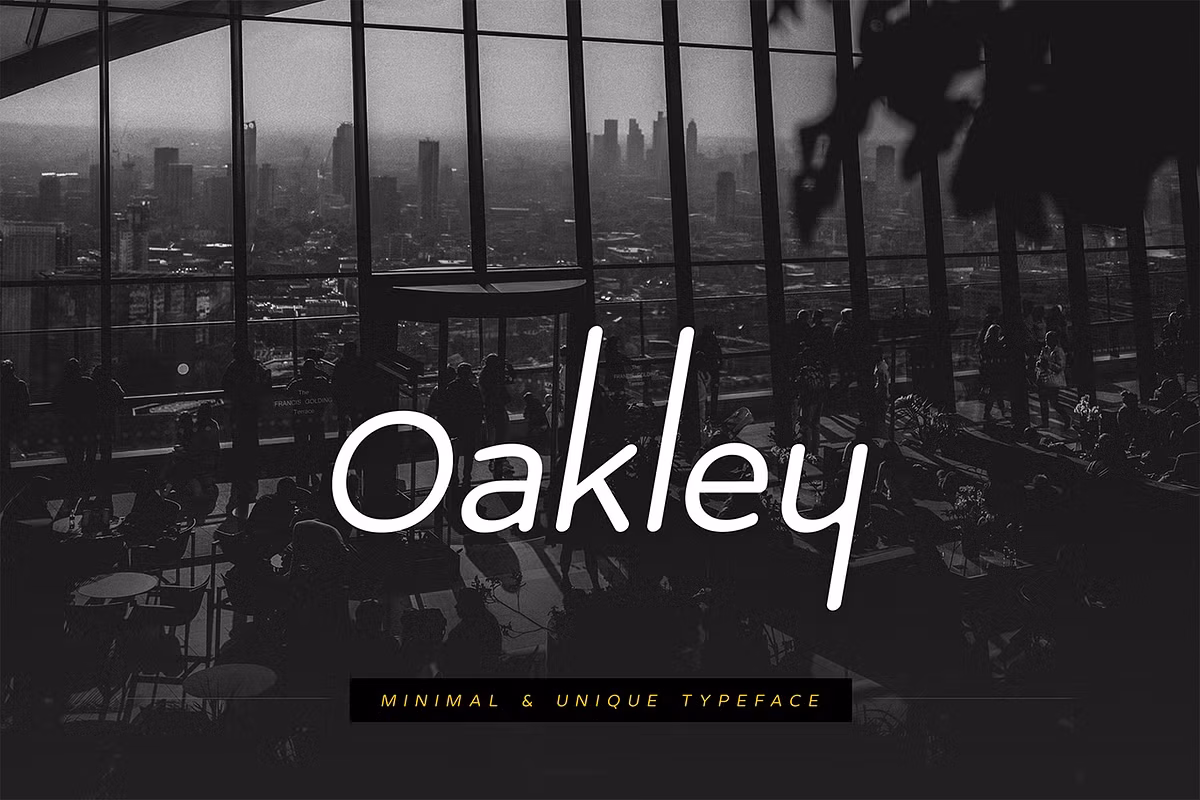
Oakley Font Free Download is a clean, minimal typeface designed with simplicity and elegance in mind. Featuring sharp lines, subtle curves, and modern proportions, this font is perfect for branding, editorial layouts, websites, product packaging, and any project that requires a contemporary, professional touch.
Its minimalist design ensures high readability while maintaining a sophisticated, stylish look. Whether you're designing for a tech startup, a lifestyle brand, or creating a modern corporate identity, Oakley brings a refined touch to your typography. Oakley Font Free Download lets you explore its sleek design in personal projects before purchasing a commercial license.
Elevate your designs with Oakley — the minimalist font that delivers elegance and clarity in every letter.